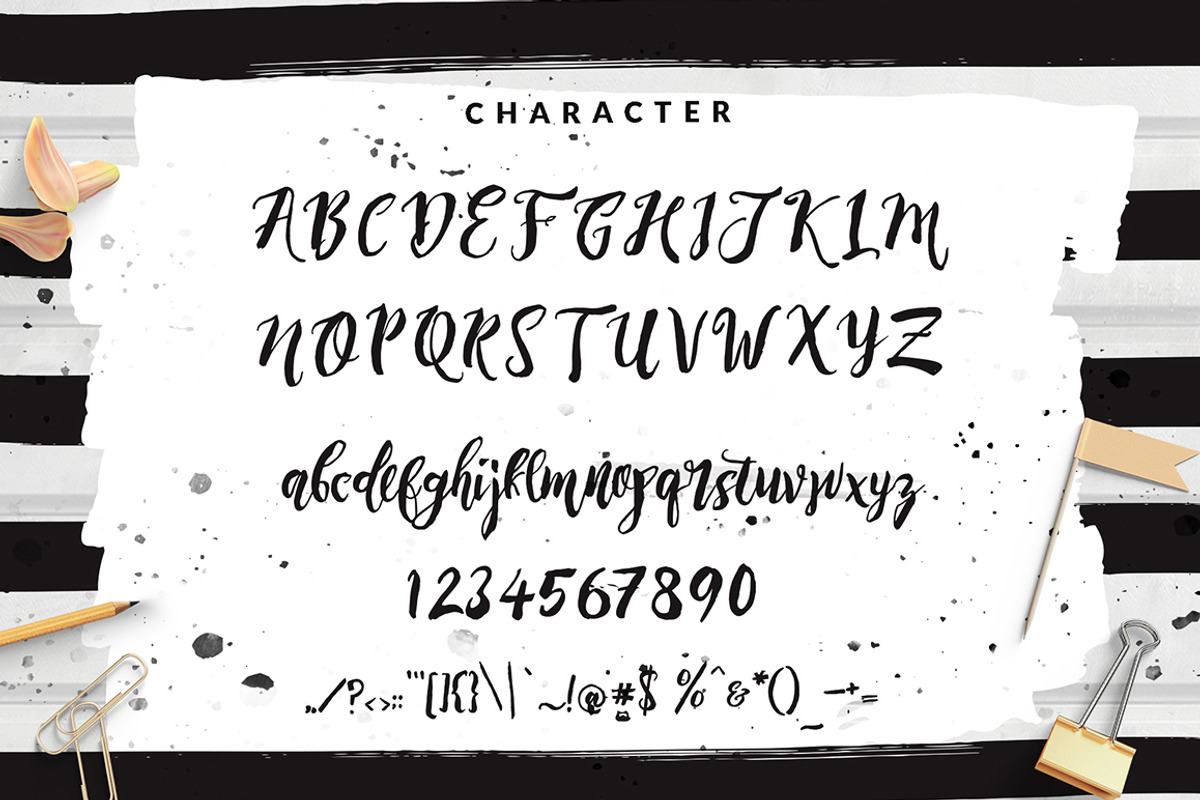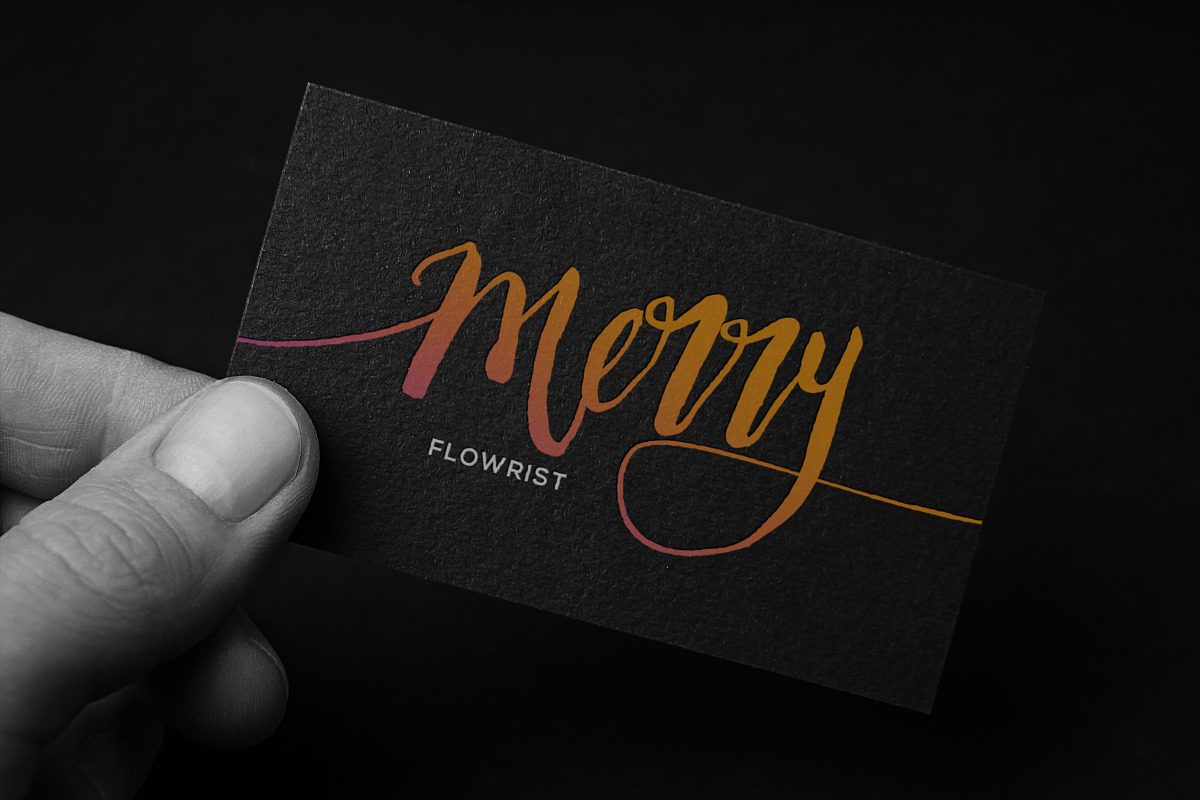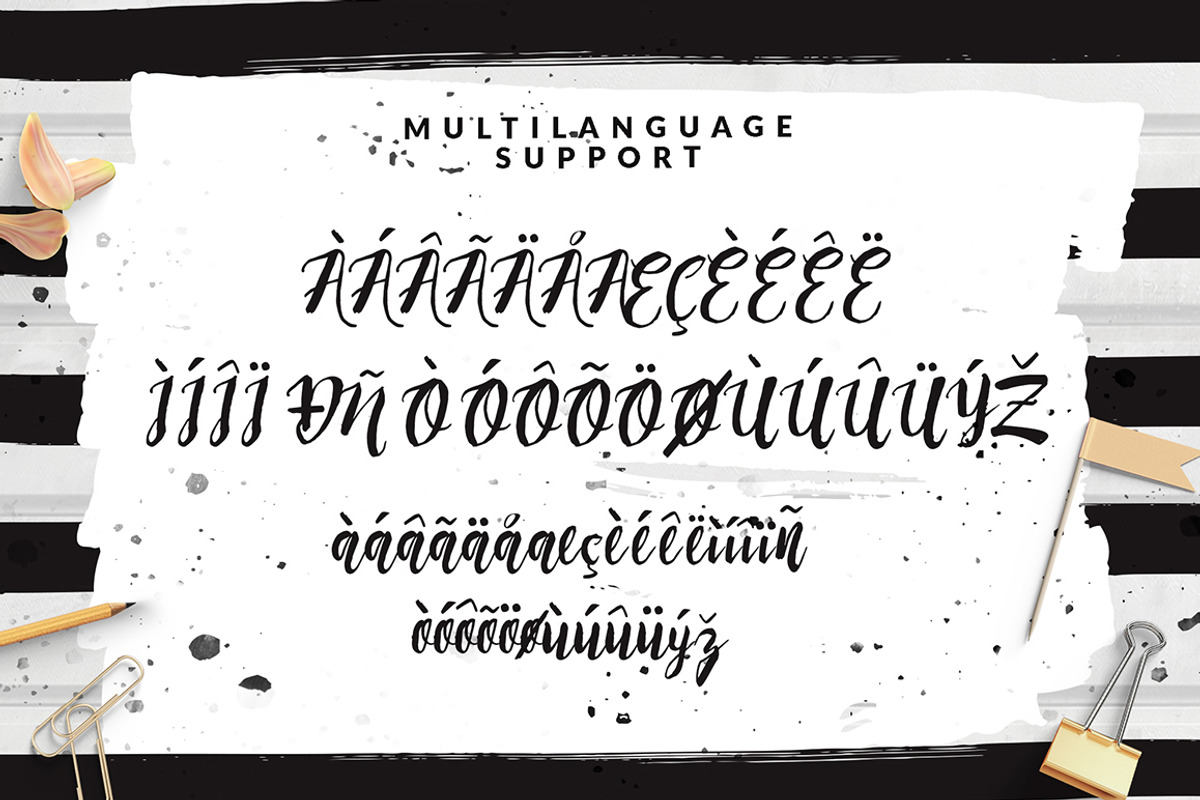
Rising Brush Script
Rising Brush Script is a chaotic beautiful script.Imperfect flow and grunge style combined with script create awesome elegant and grunge feel at the same time. Awesome for designing book covers, film covers, apparel, cards, logos, posters, etc. Opentype features gives you more alternatives in designing.